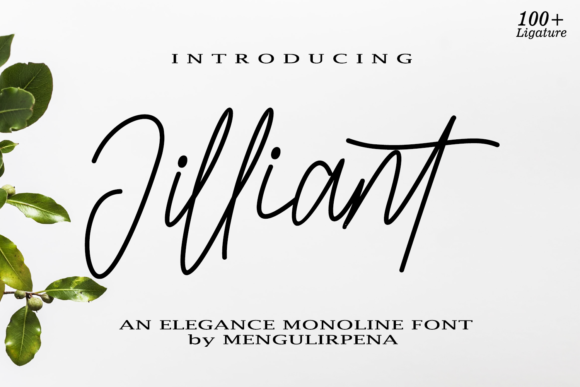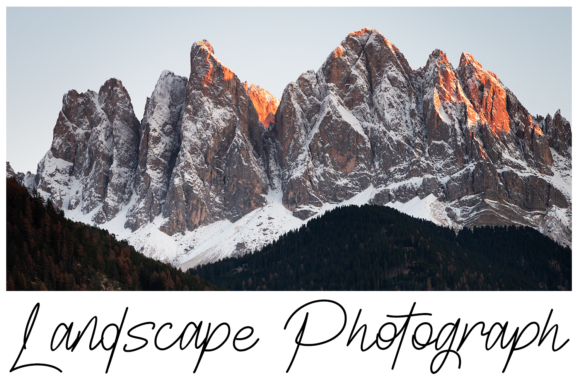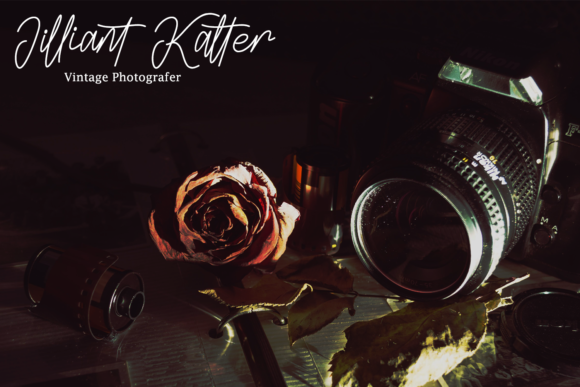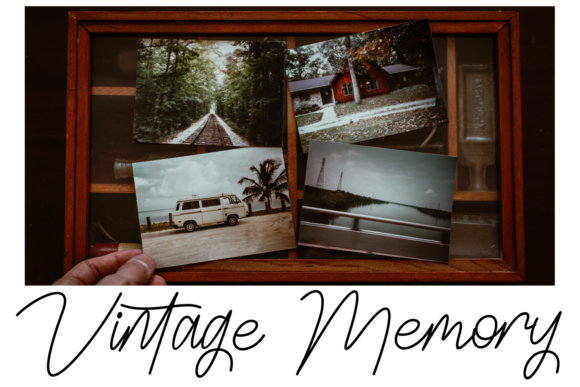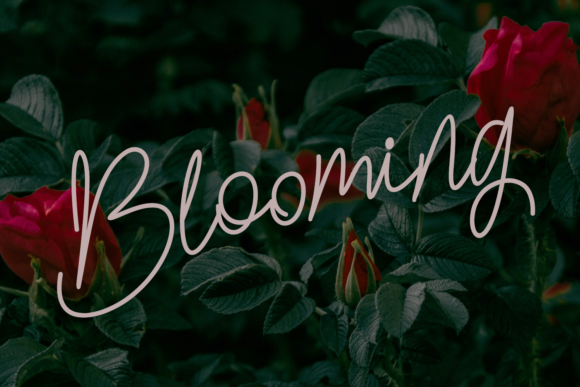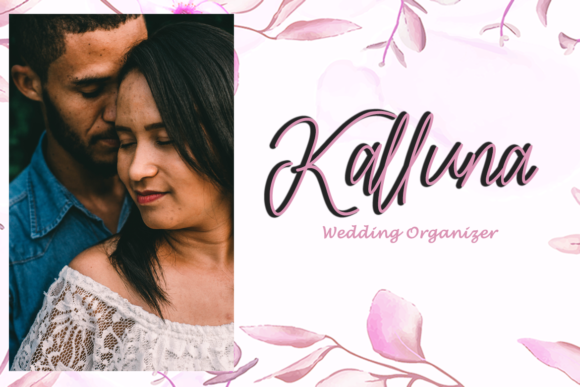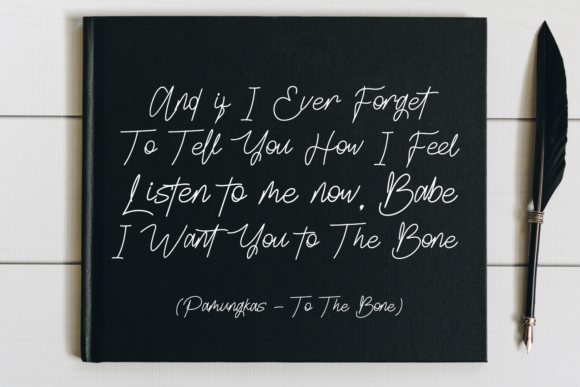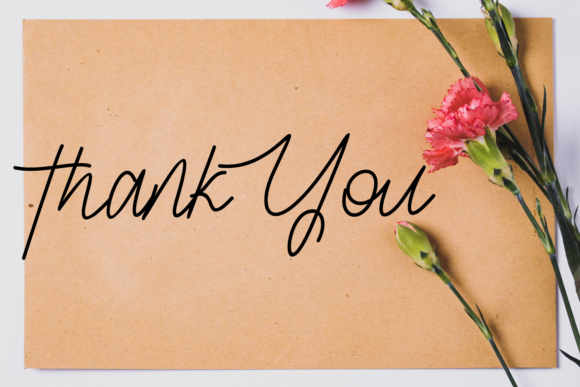
Jilliant
About Jilliant Font
Jilliant feels equally charming and elegant. This stunning handwritten font is a stylish homage to classic calligraphy. It features a varying baseline, smooth lines, gorgeous glyphs and stunning alternates.